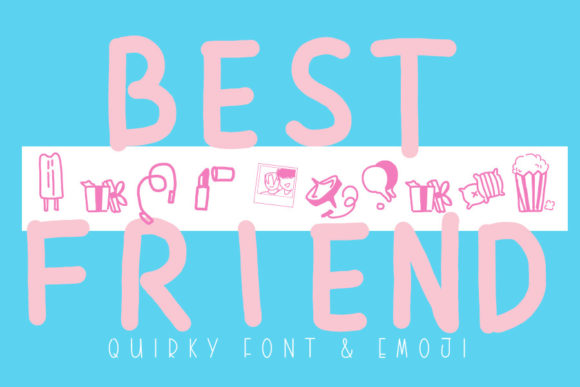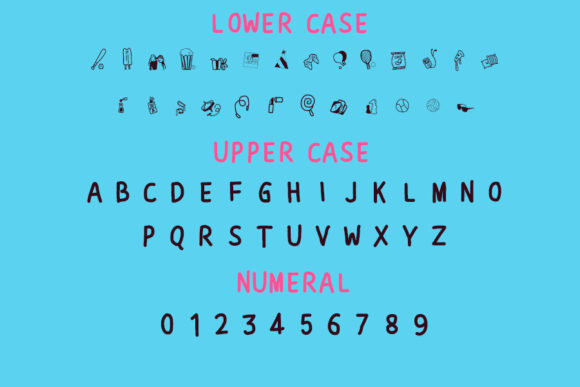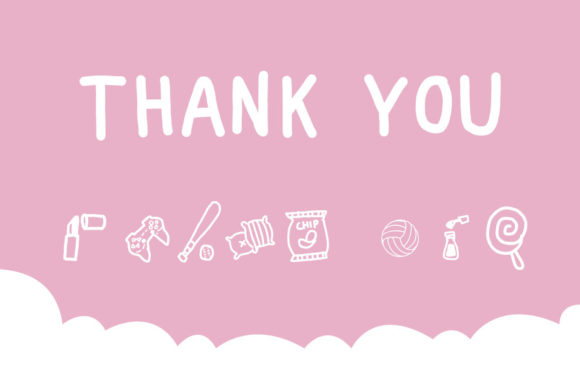
Best Friend Font
About Best Friend Font
Best Friend is a cute and quirky handwritten font, that can be used for all chalkboard quotes or teaching material! Its authentic look will add a personal and realistic feel to your designs.